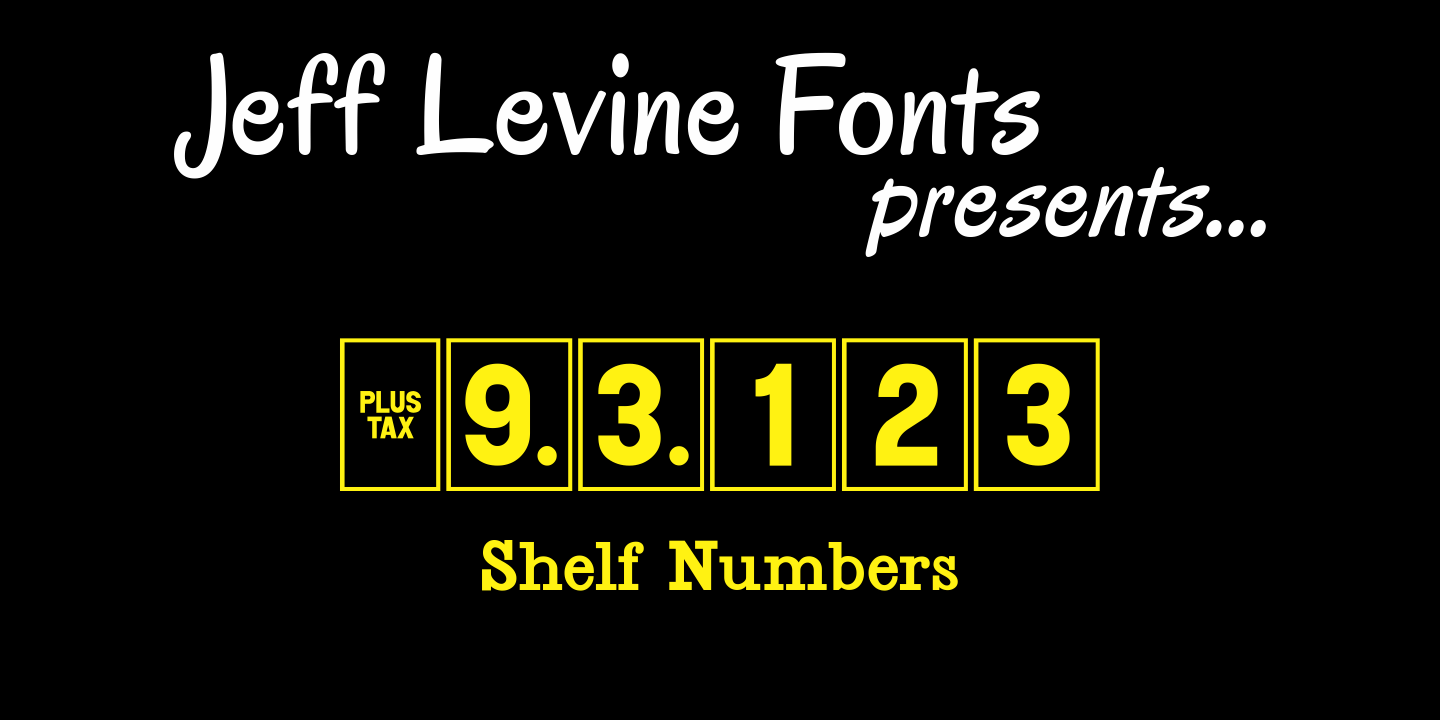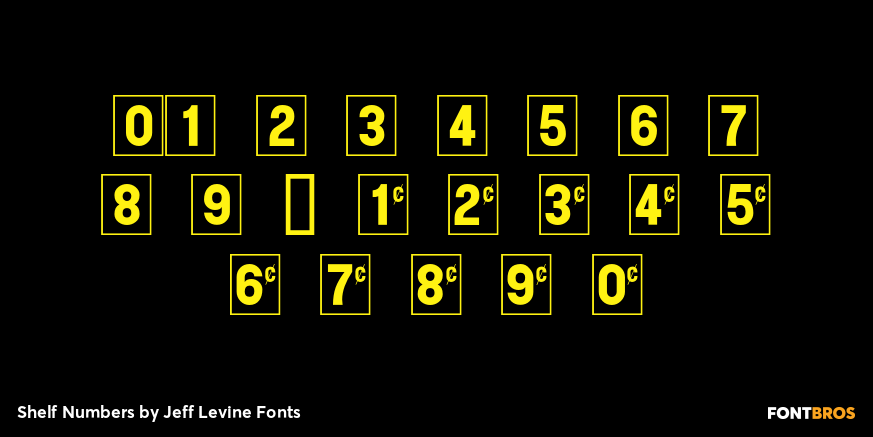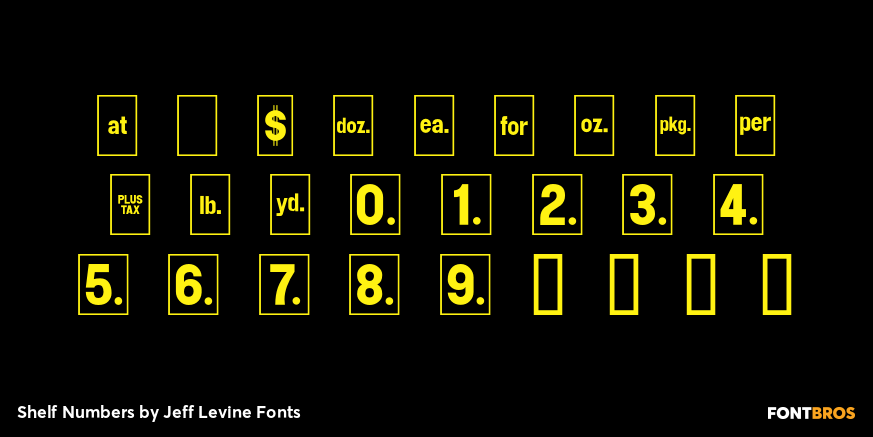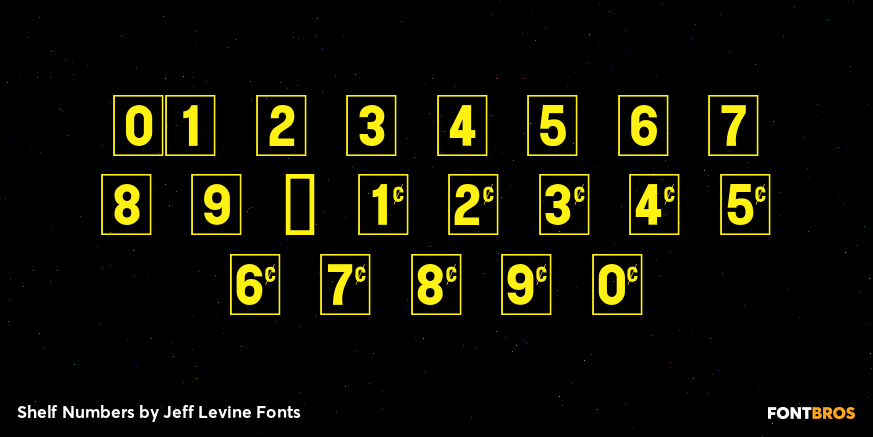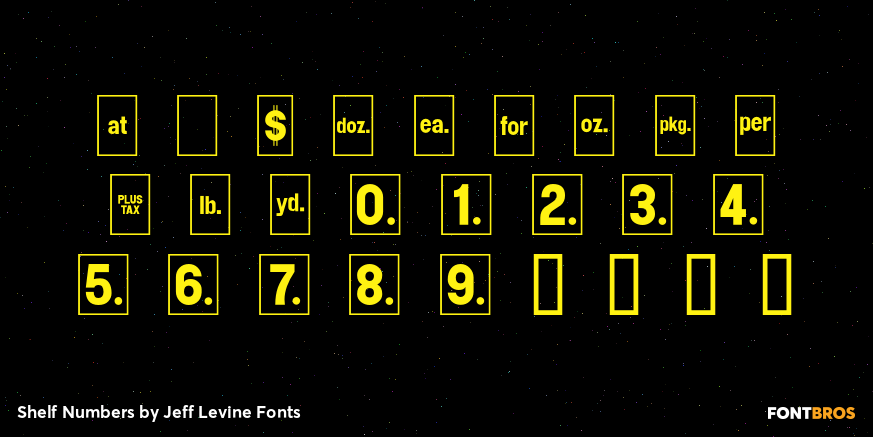
Shelf Numbers
Shelf Numbers JNL recreates the small plastic pricing tags that were used on grocery, drug, variety and liquor stores shelves for many years. The number keys have alternates in the shift position with a cent sign alongside the numbers. Also included are various phrases such as "for", "each", "lb." in the A-L/a-l keystrokes, and there is an additional set of numbers in the M-V/m-v keystrokes with a decimal point to the right of each numeral for dollar amounts.
Shelf Numbers by Jeff Levine Fonts